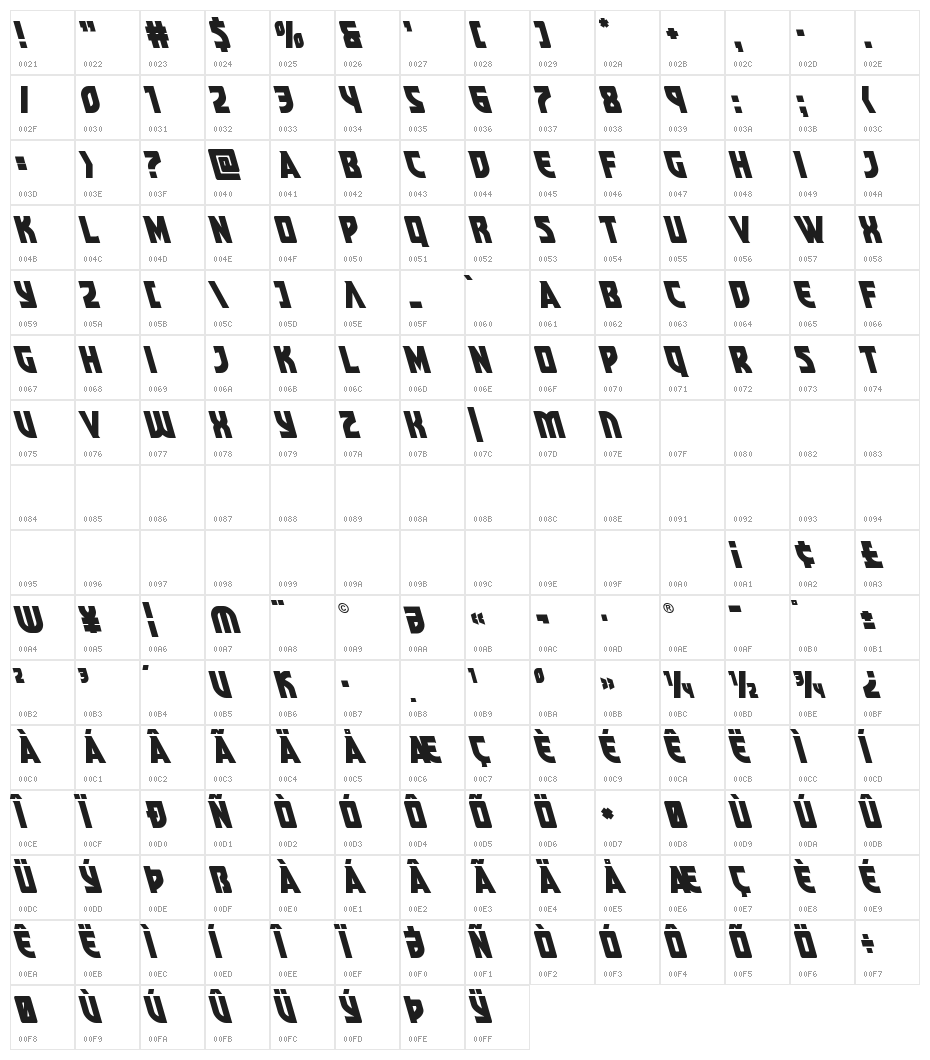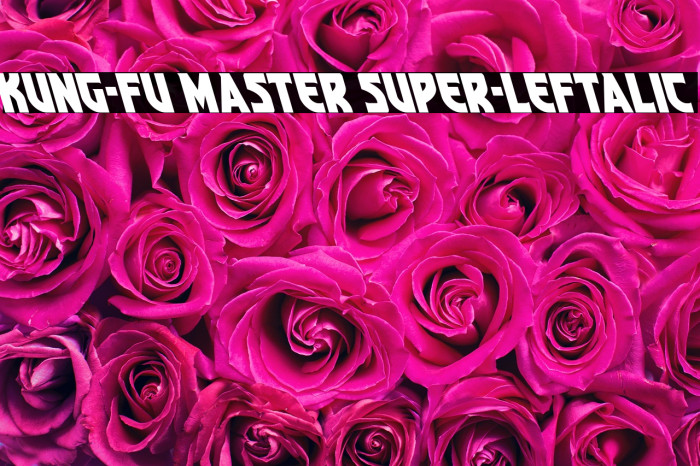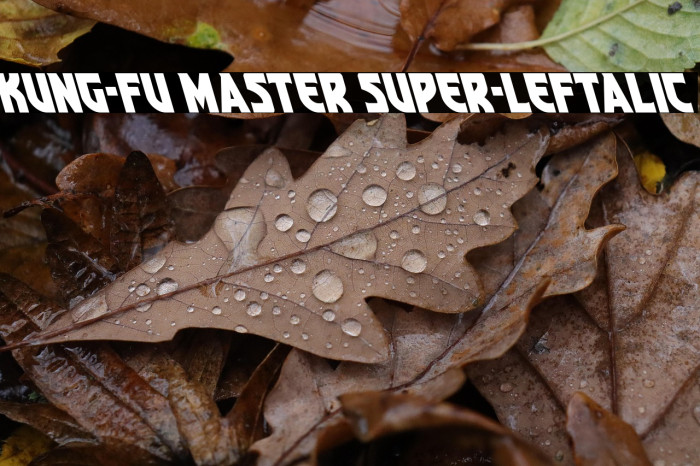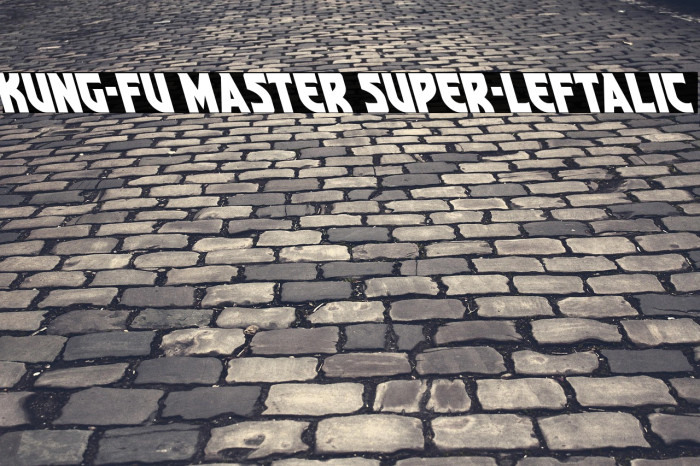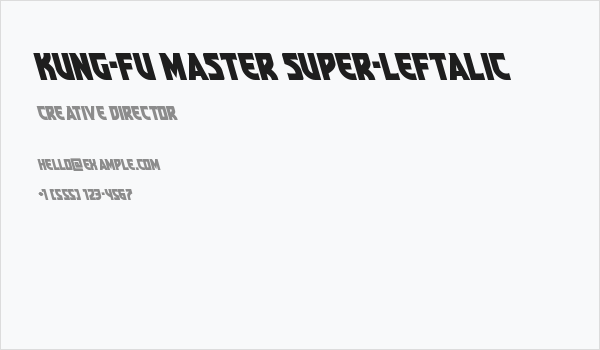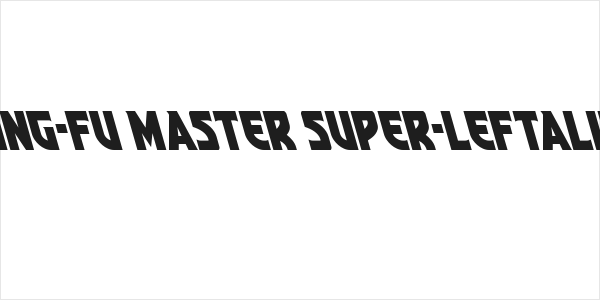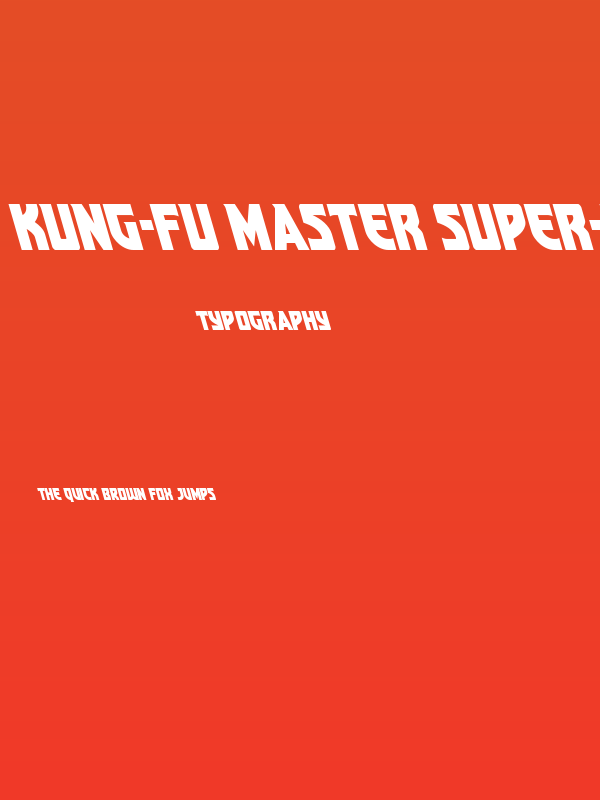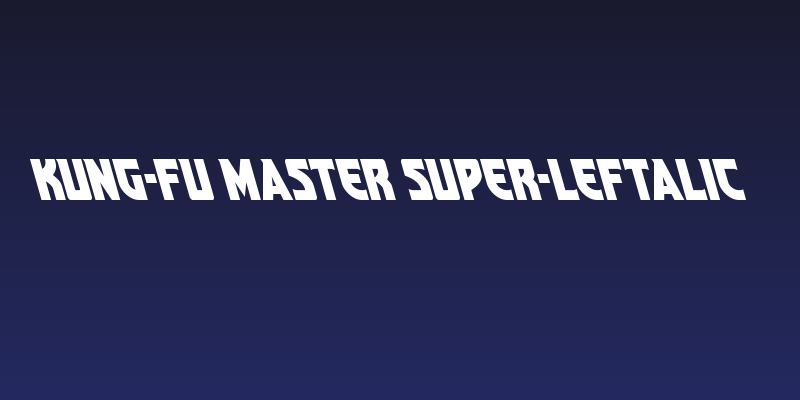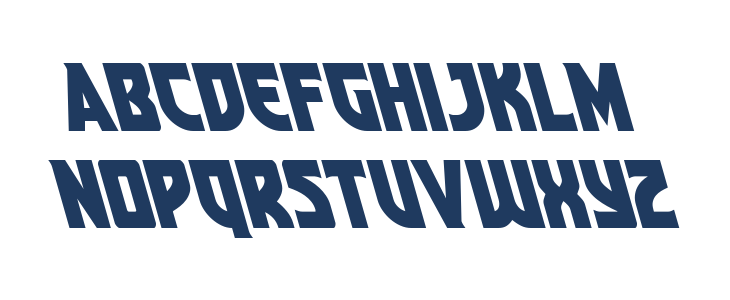
Kung-Fu Master Super-Leftalic Font
Kung-Fu Master Super-Leftalic Description
This font features a bold and dynamic design with a strong slant to the left, giving it a sense of motion and energy. The characters are thick and blocky, with sharp angles and a slightly condensed form. The uppercase and lowercase letters maintain a consistent style, emphasizing boldness and readability. The numbers and special characters follow the same design principles, ensuring uniformity across all glyphs. This font's unique style makes it stand out, ideal for projects that require a striking and impactful visual presence.
| Proposed Projects | Perfect for sports branding, action-themed posters, video game titles, and dynamic advertising campaigns. |